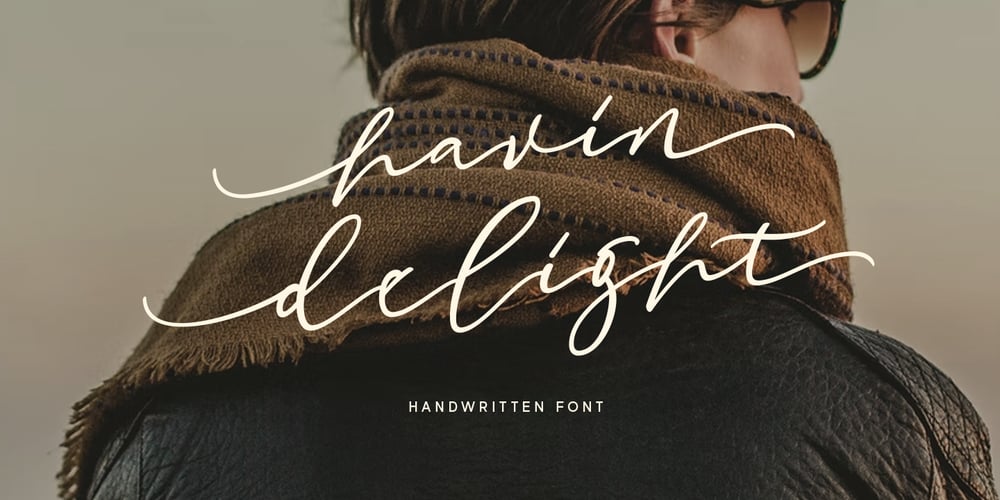
Havin Delight Font Family was designed by Hendry Juanda and published by Letterhend. Havin Delight contains 1 styles and family package options. Havin Delight is a beautiful signature script based on manual hand writing. The natural flow make this font looks like a real hand writing. This type of font perfectly made to be applied especially in logo, and the other various formal forms such as invitations, labels, logos, magazines, books, greeting / wedding cards, packaging, fashion, make up, stationery, novels, labels or any type of advertising purpose.Features :uppercase & lowercasenumbers and punctuationmultilingualalternates and ligaturesPUA encodedWe highly recommend using a program that supports OpenType features and Glyphs panels like many of Adobe apps and Corel Draw, so you can see and access all Glyph variations. How to access opentype feature : letterhend.com/tutorials/using-opentype-feature-in-any-software/Email us to letterhend@gmail.com if you need something! Happy Designing!